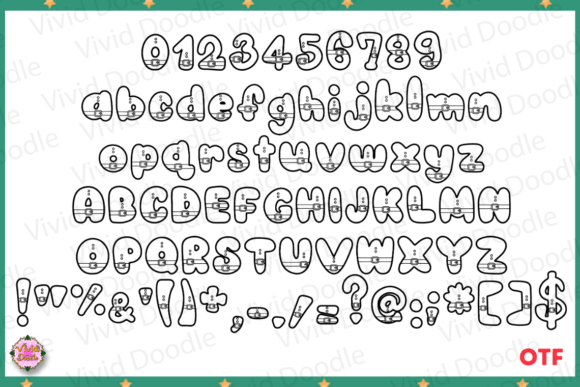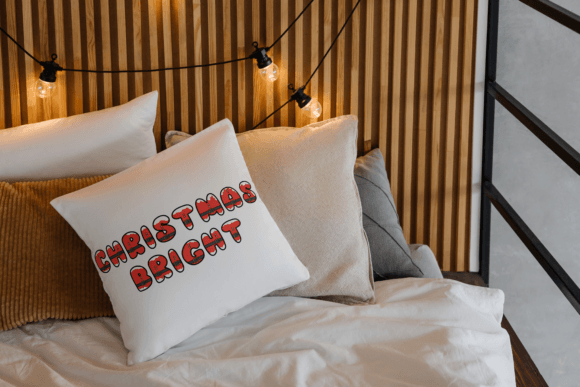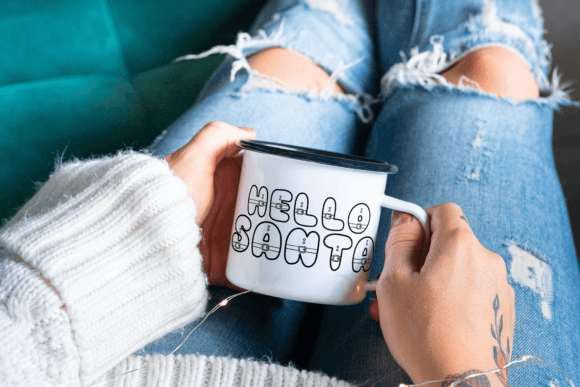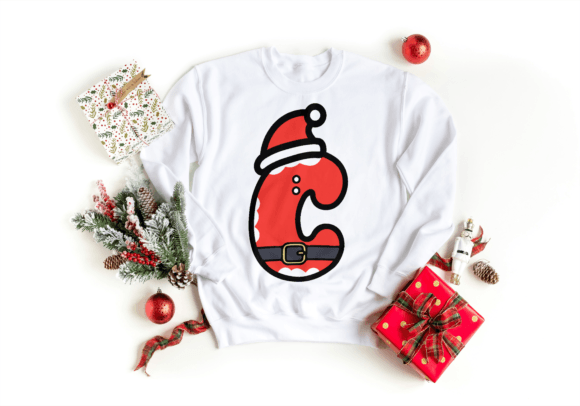
Introducing Christmas Bright Font: Spread Festive Cheer with Every Letter
The holiday season is upon us, and what better way to get into the spirit than with a unique and festive font that captures the warmth and joy of Christmas? Look no further than Christmas Bright Font, a hand-lettered typeface designed to bring a touch of merriment to your creations. In this article, we’ll dive into the details of this enchanting font and explore how it can elevate your designs, crafts, and projects.
A Font that Embodies the Spirit of Christmas
Christmas Bright Font is a newly crafted typeface, carefully designed to evoke the magic of the holiday season. Its hand-lettered style gives it a personal and whimsical feel, perfect for adding a touch of festive flair to your work. Whether you’re a designer, crafter, or DIY enthusiast, this font is sure to inspire your creativity and help you create something truly special.
Key Features of Christmas Bright Font
- Unique Hand-Lettered Style: Each letter has been carefully crafted to give the font a personal and festive feel.
- Adaptable and Versatile: Use Christmas Bright Font for a wide range of projects, from holiday cards and decorations to branding and marketing materials.
- Enchanting and Exclusive: This font is a one-of-a-kind creation, designed specifically for the holiday season.
Christmas Bright Font is a dream come true for designers and crafters looking to add a touch of festive cheer to their work. Here are just a few ideas for how you can use this amazing font:
- Holiday Cards and Invitations: Create beautiful and unique holiday cards, invitations, and gift tags with Christmas Bright Font.
- Decorations and Signage: Use the font to create eye-catching decorations, signs, and banners for your home or business.
- Branding and Marketing: Add a touch of festive flair to your branding and marketing materials, such as logos, social media graphics, and email templates.
- Crafting and Scrapbooking: Use Christmas Bright Font to add a personal touch to your crafting and scrapbooking projects, such as photo albums, journals, and gift boxes.
Why Choose Christmas Bright Font?
With so many fonts available, why choose Christmas Bright Font? Here are just a few reasons why this font stands out:
- Unique and Exclusive: Christmas Bright Font is a one-of-a-kind creation, designed specifically for the holiday season.
- High-Quality Design: The font has been carefully crafted to ensure that it looks beautiful and elegant in any context.